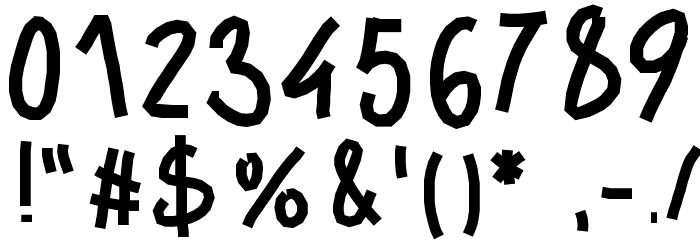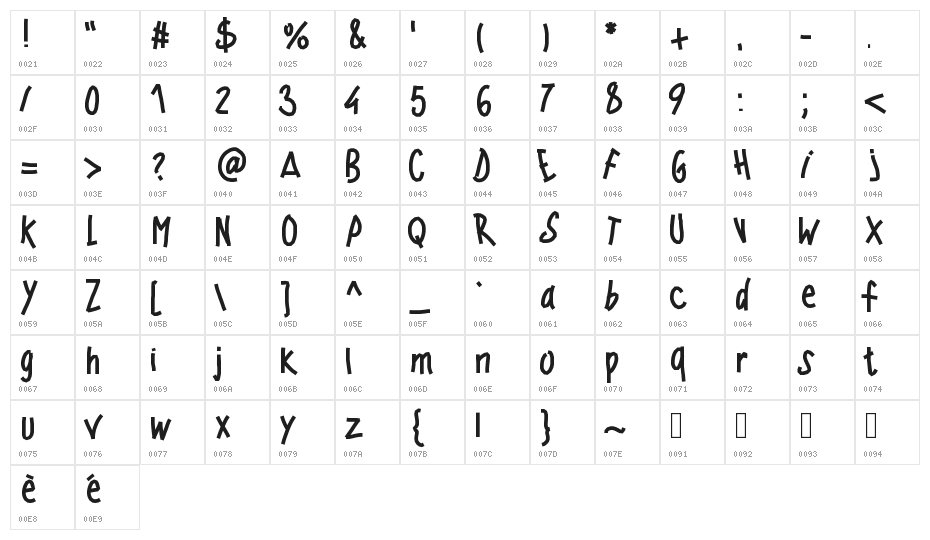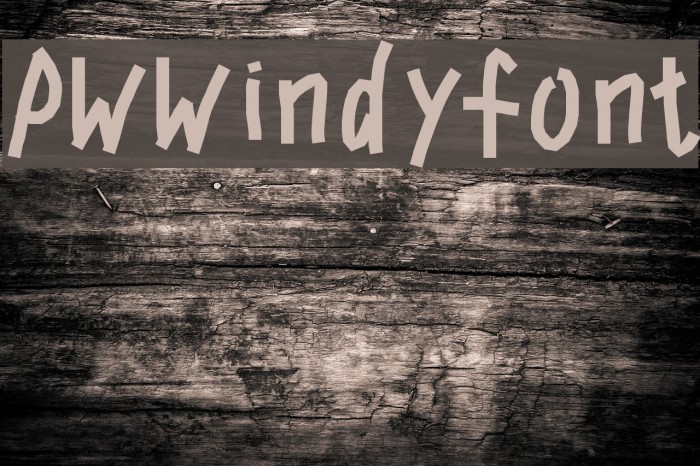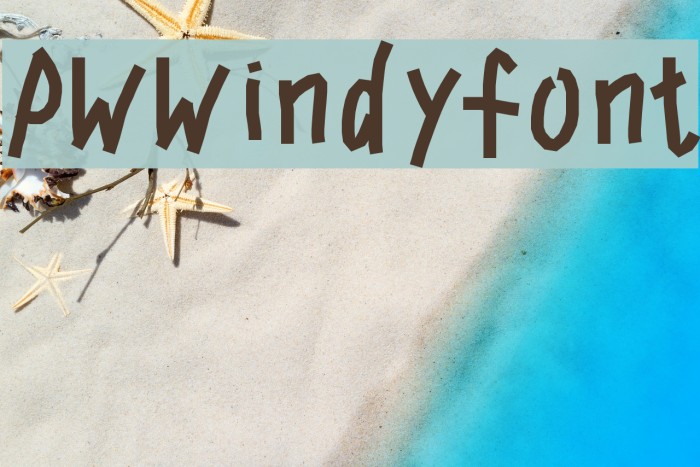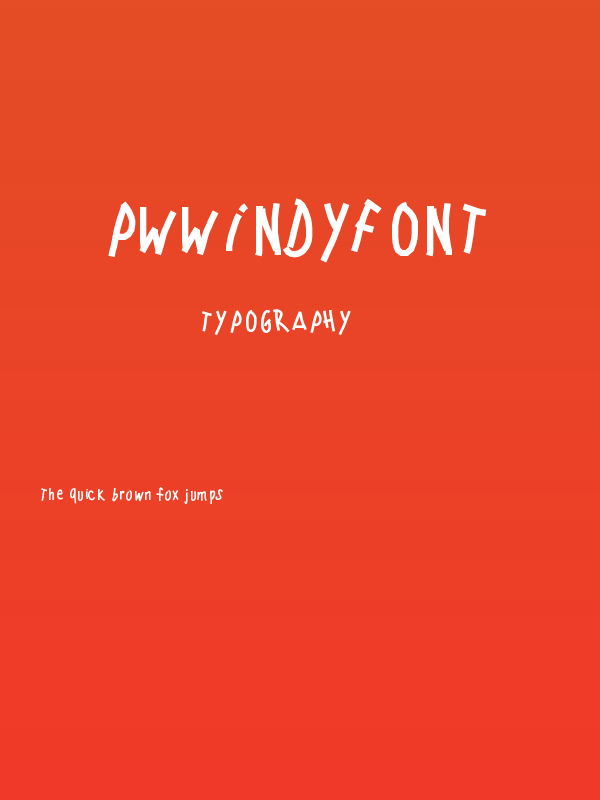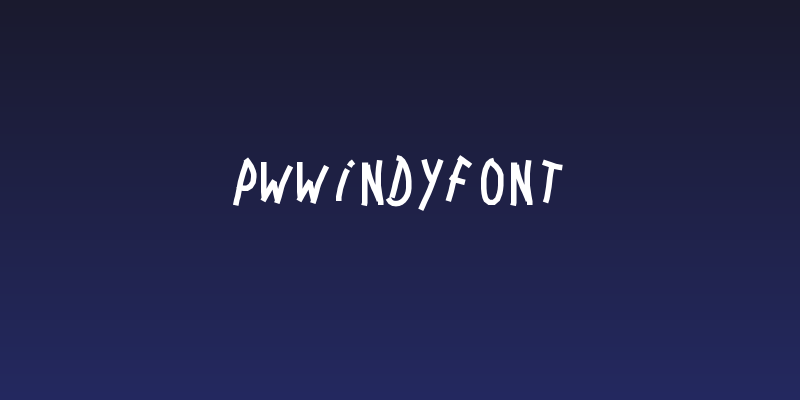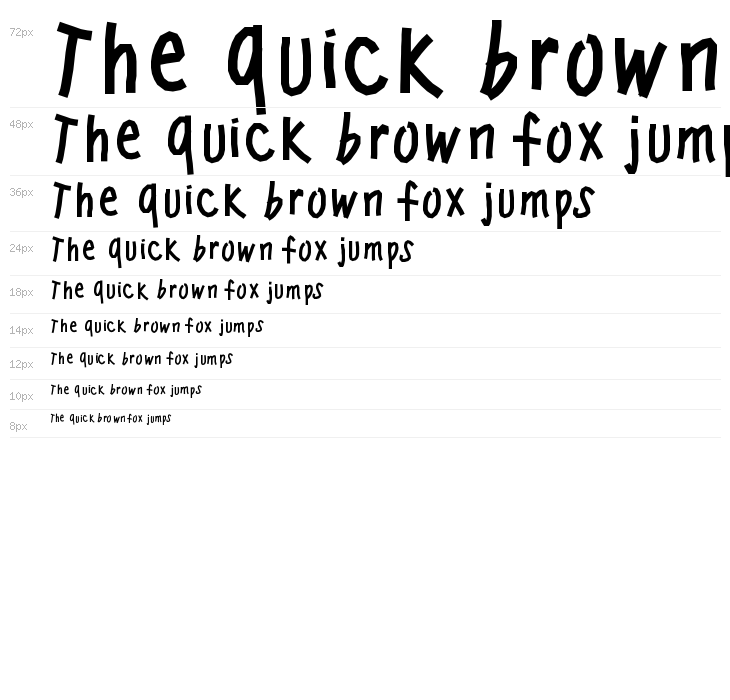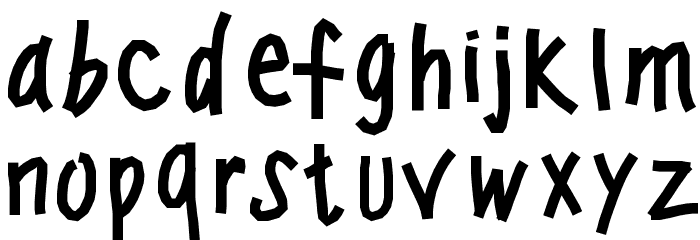
PWWindyfont Font
PWWindyfont Description
This font features a playful and dynamic style, characterized by its irregular and slightly tilted letterforms. The strokes are bold and uneven, giving it a hand-drawn appearance that exudes energy and spontaneity. The uppercase and lowercase letters maintain a consistent style, with exaggerated curves and angles that add to its whimsical nature. Numbers and special characters follow the same lively design, making it suitable for creative and informal applications. The overall look is casual and artistic, perfect for projects that require a touch of personality and flair.
| Proposed Projects | Ideal for children's books, playful branding, posters, and creative social media graphics. |